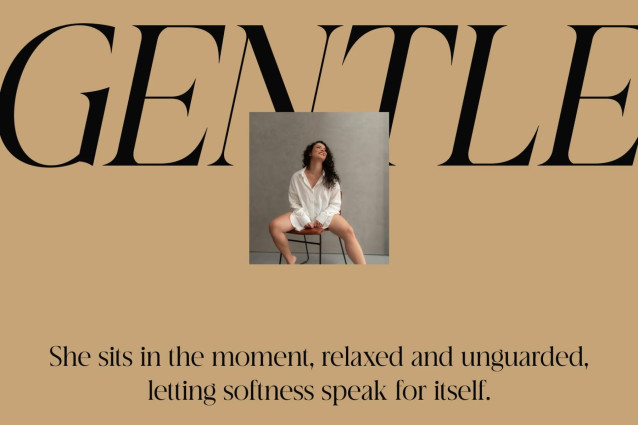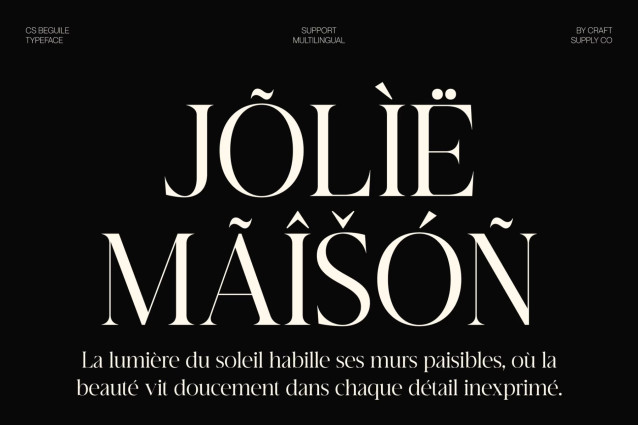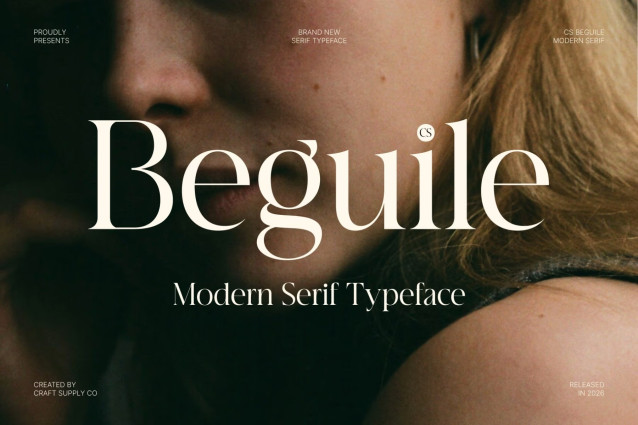
CS Beguile – Modern Serif Font: Where Contemporary Elegance Meets Timeless Sophistication
Elegant Design with Professional Character
This is a modern serif font designed to communicate elegance and professionalism through its refined letterforms and balanced proportions. Its clean structure and graceful serif details create a sophisticated visual identity that feels contemporary, polished, and effortlessly luxurious. Every character is crafted to deliver clarity while maintaining an unmistakable sense of prestige.
Contemporary Style with Timeless Appeal
This font e offers a versatile aesthetic that remains relevant across a wide range of premium design applications. Its harmonious stroke contrast and carefully shaped serifs create a graceful rhythm, giving the font a timeless quality that enhances both bold headlines and elegant branding.